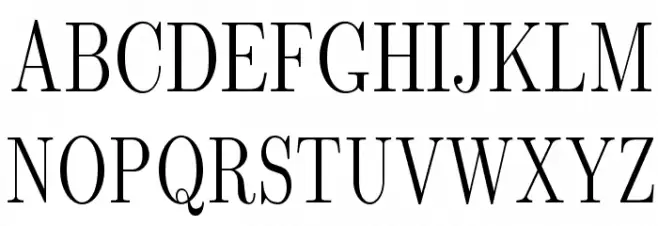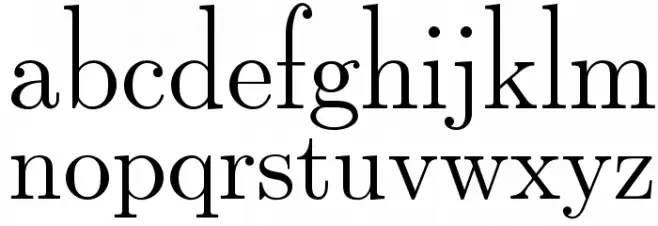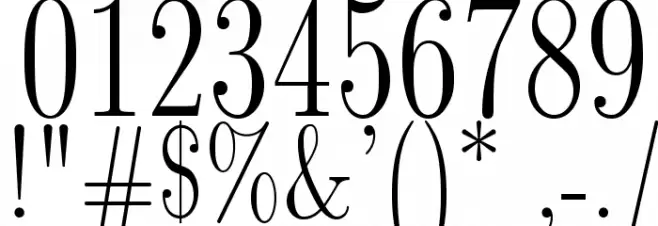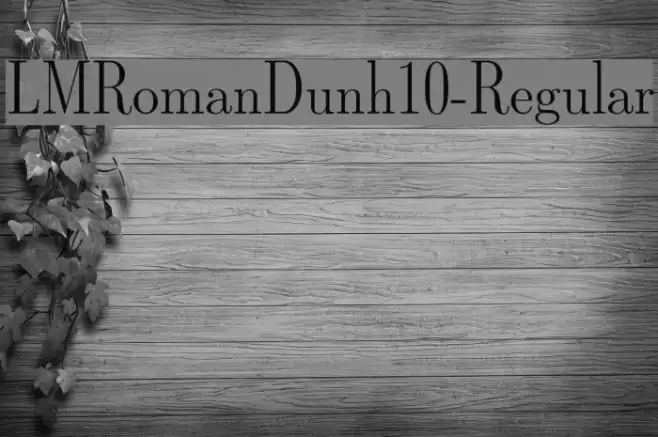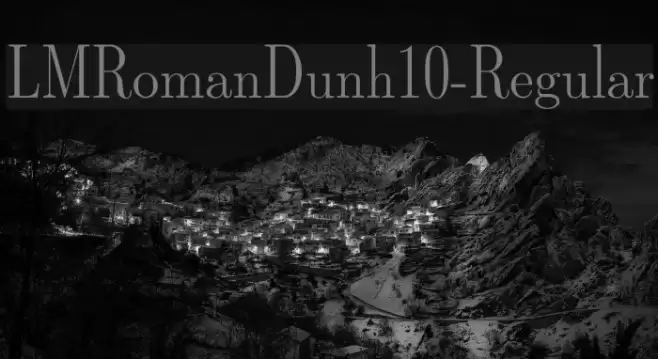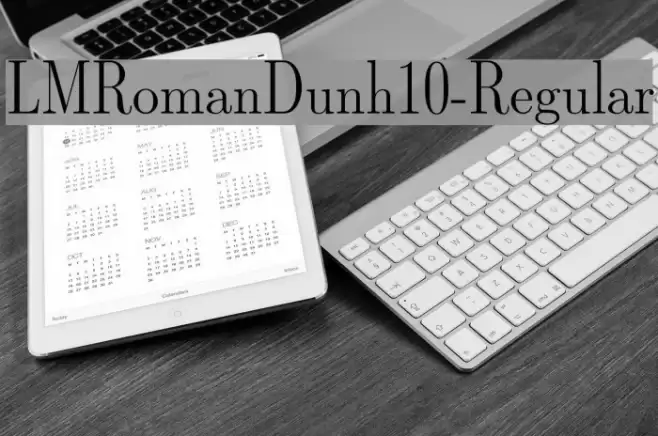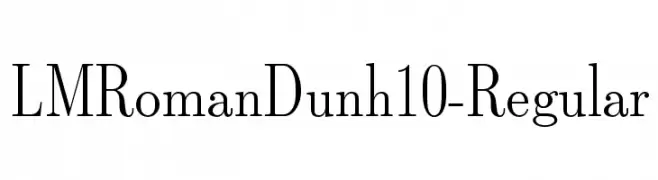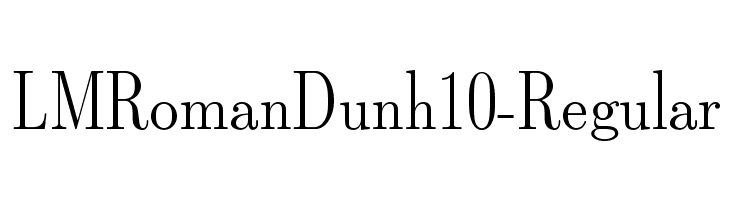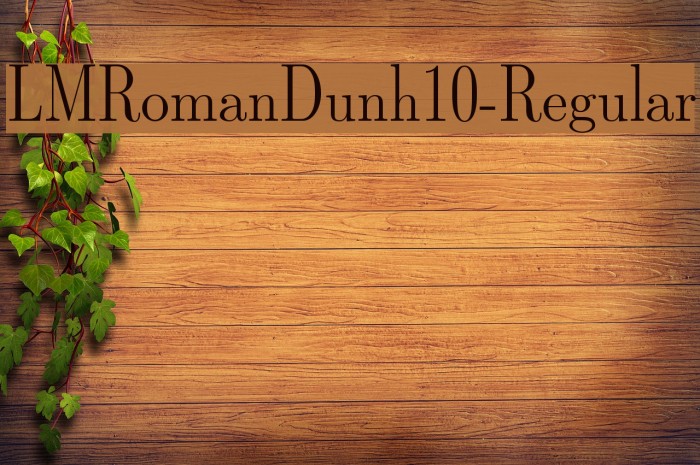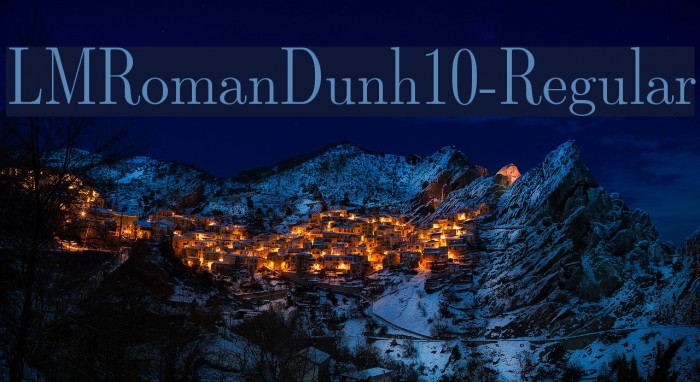
LMRomanDunh10-Regular
This font features a classic serif design with elegant and refined strokes. The characters exhibit a high contrast between thick and thin lines, giving it a sophisticated and traditional appearance. The serifs are prominent and sharply defined, adding to the font's readability and timeless aesthetic. The uppercase letters are stately and well-proportioned, while the lowercase letters maintain a harmonious balance, enhancing the overall legibility. The numerals are distinct and clear, with a consistent style that complements the alphabetic characters. Special characters are thoughtfully designed, maintaining the font's cohesive look.
A classic serif font with high contrast and elegant strokes.
- Proposed Projects: Ideal for use in editorial design, book publishing, formal invitations, and branding projects that require a touch of elegance and tradition.
- Category: Serif
- Contrast: High
- Overall Style: Classic
- Use Case: Headlines, Body text, Editorial design